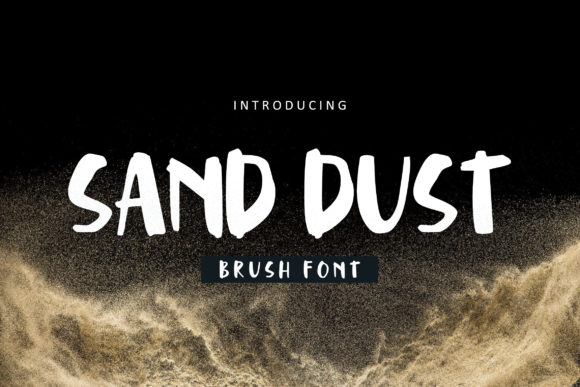
Introducing Sand Dust Font - The Ultimate Expression of Creativity and Style
In a world where individuality reigns supreme, Sand Dust Font emerges as a beacon of inspiration, inviting you to embrace your creative spirit and make a statement like never before. This remarkable display font, meticulously crafted by the talented ArdiDesigns, is a symphony of casual elegance and playful charm, designed to infuse your designs with a touch of whimsy and delight.
With its captivating brush pen strokes, Sand Dust Font exudes a sense of authenticity and warmth that resonates with audiences of all ages. Its clean lines and a hint of quirkiness create a visual harmony that elevates your projects, whether it's a captivating logo, a striking social media post, or a heartfelt DIY creation.
Unleash your imagination and let Sand Dust Font guide you on a journey of self-expression. Its versatility knows no bounds, making it the perfect companion for a myriad of projects:
- Elevate Your Logos: Create logos that radiate personality and leave a lasting impression.
- Amplify Your Branding: Craft a brand identity that reflects your unique essence and resonates with your target audience.
- Captivate Social Media: Engage your followers with visually stunning posts that demand attention and ignite engagement.
- Personalize DIY Projects: Add a touch of creativity and charm to your handmade gifts, cards, and home décor.
Sand Dust Font is more than just a collection of letters and characters; it's an invitation to express yourself authentically and make a statement that reflects your true colors. Its user-friendly nature makes it accessible to both seasoned designers and those just starting their creative journey.
Embrace the beauty of Sand Dust Font and unlock a world of design possibilities. Let your imagination soar, let your creativity flow, and let your projects shine with a touch of captivating charm.